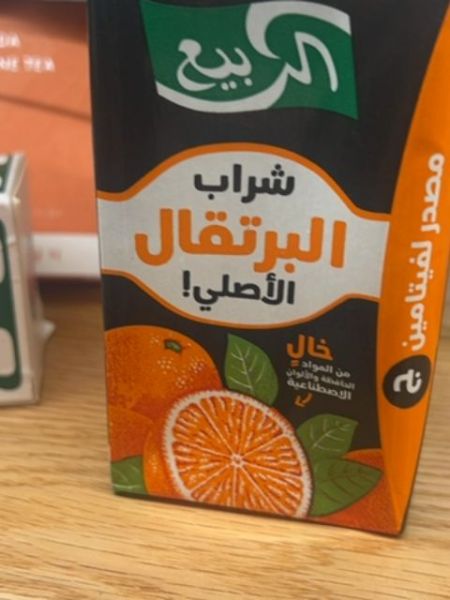
الربيع شراب البرتقال الأًصلي
A refreshing orange juice drink that provides a natural and original citrus flavor.
Saudi Arabia
The typography on the packaging uses bold and clear Arabic script, ensuring legibility and drawing attention to the product name. The font presents a modern yet traditional style, reflecting the brand's commitment to authenticity. The use of white text on a colored background enhances readability, while the slightly rounded font edges convey a friendly and approachable image.
The packaging prominently features a bright orange and green color scheme, which visually emphasizes the orange flavor of the juice. The front of the package is adorned with illustrations of fresh oranges, adding a natural and appealing look. The juice carton has a modern, eye-catching design with clear and bold labeling.
- Rich in vitamin C.
- Free from artificial additives.
- Popular in Middle Eastern countries.